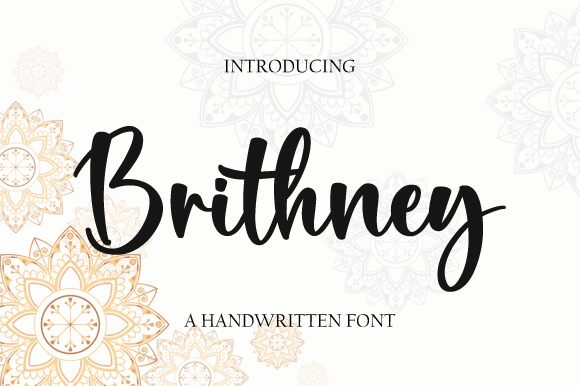
Discover Brithney, a masterpiece from Graphix Line Studio that captures the essence of authenticity with its handwritten charm. This font stands out for its fluidity and natural elegance, effortlessly bringing a personal touch to any project.
Ideal for designs that demand warmth and character, Brithney's versatile style is perfect for invitations, branding, and editorial work. Embrace this font's potential to elevate your creative endeavors with its distinctive blend of casual sophistication and modern flair.
Experience how Brithney can transform your message into an artful expression that resonates with audiences across various mediums.